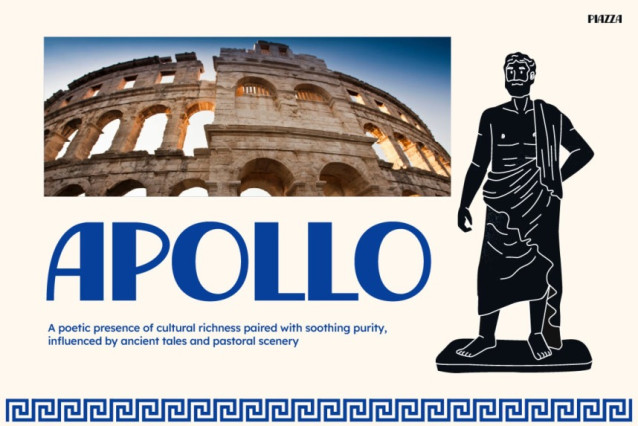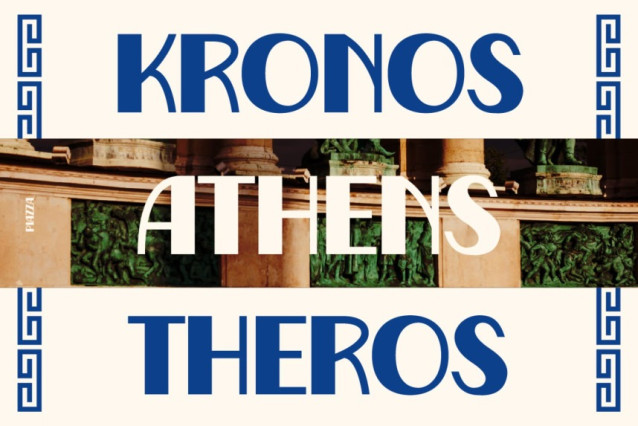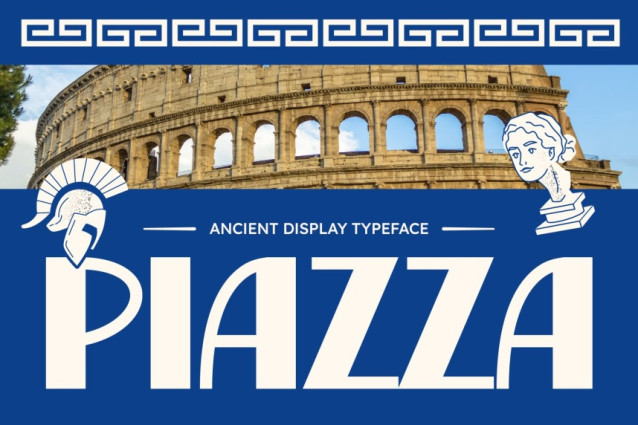
Piazza Font
PIAZZA FONT – Epic Greek Aesthetics for Strong Visual Branding. Instagram Font PIAZZA introduces a bold fusion of classic Greek aesthetics and modern digital clarity. The font feels structured and sculpted, yet it stays warm and expressive. Moreover, its carved shapes and confident curves add character to every design. Each letter carries a monumental energy that reflects ancient architecture and mythical stories. As a result, even simple layouts gain depth and personality.
The design draws inspiration from Greek temples, pottery art, and sharp stone engravings. Consequently, the font creates a visual style that feels both timeless and fresh. Piazza features clean stroke contrast and smooth spacing, which improves readability across all screen sizes. Additionally, its balanced letterforms make it suitable for both big headlines and smaller text. Even so, the artistic details remain strong and noticeable.
In your sample visuals, Piazza blends beautifully with Greek objects, statues, and classic themes. Furthermore, it pairs well with bold color blocks, vintage textures, or modern minimalist compositions. This helps your work capture attention fast. Thus, every title, label, and quote becomes more expressive. The font brings atmosphere, mood, and cultural richness without overwhelming the design.
Piazza does more than decorate text. Instead, it acts as a visual storyteller. It adds hints of mythology, travel vibes, historical depth, and cinematic flair. Moreover, its geometric flow gives your layout a stable and elegant rhythm. As a result, your project feels crafted, intentional, and memorable.